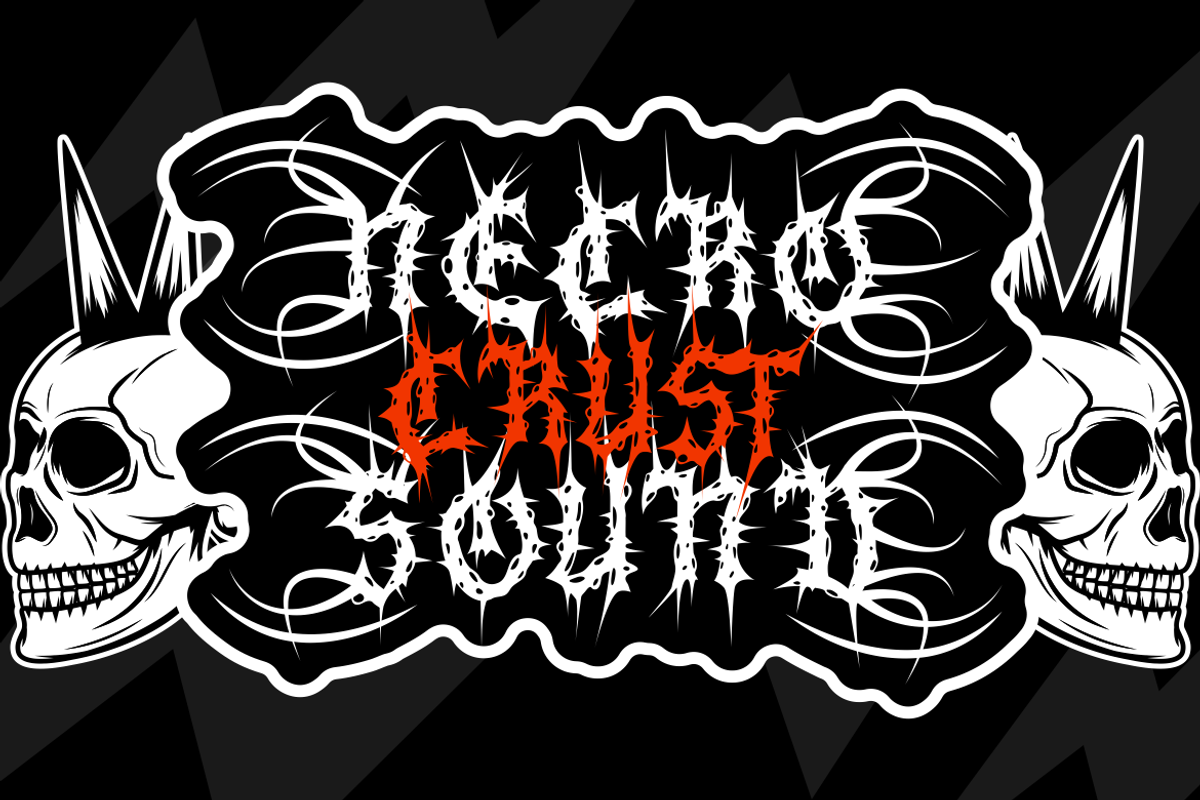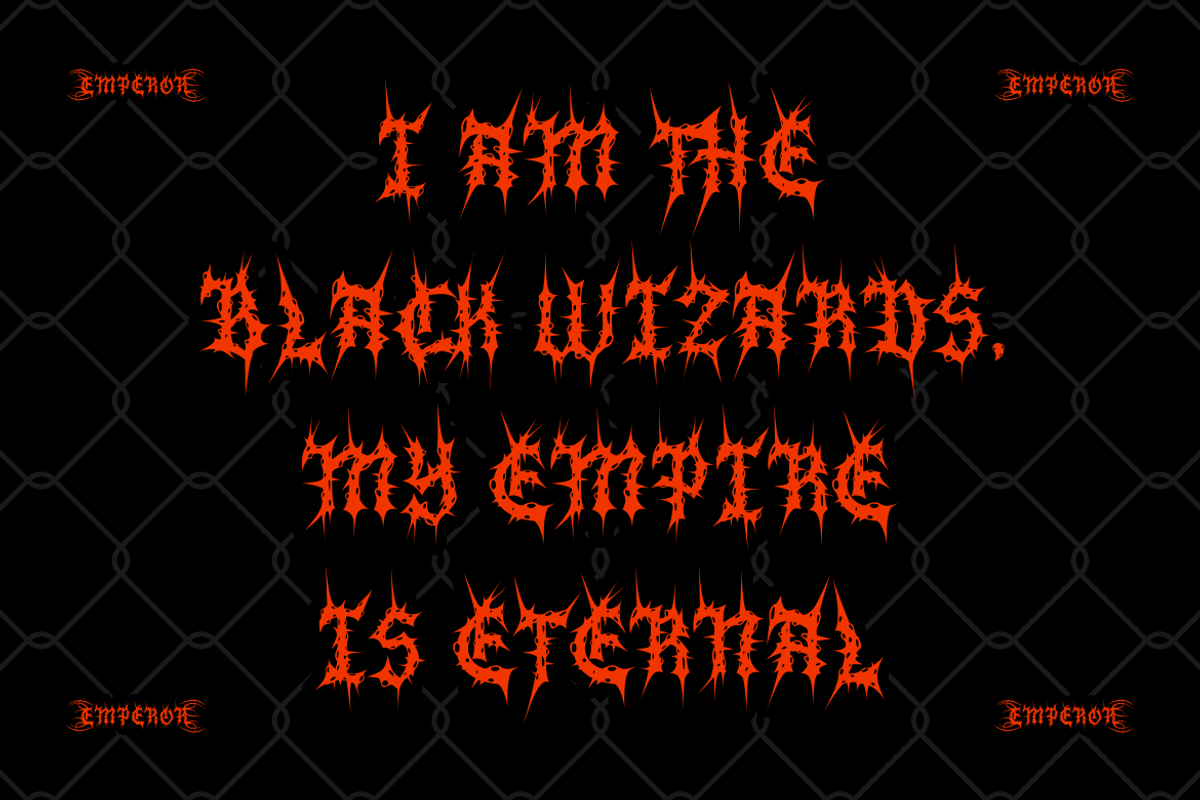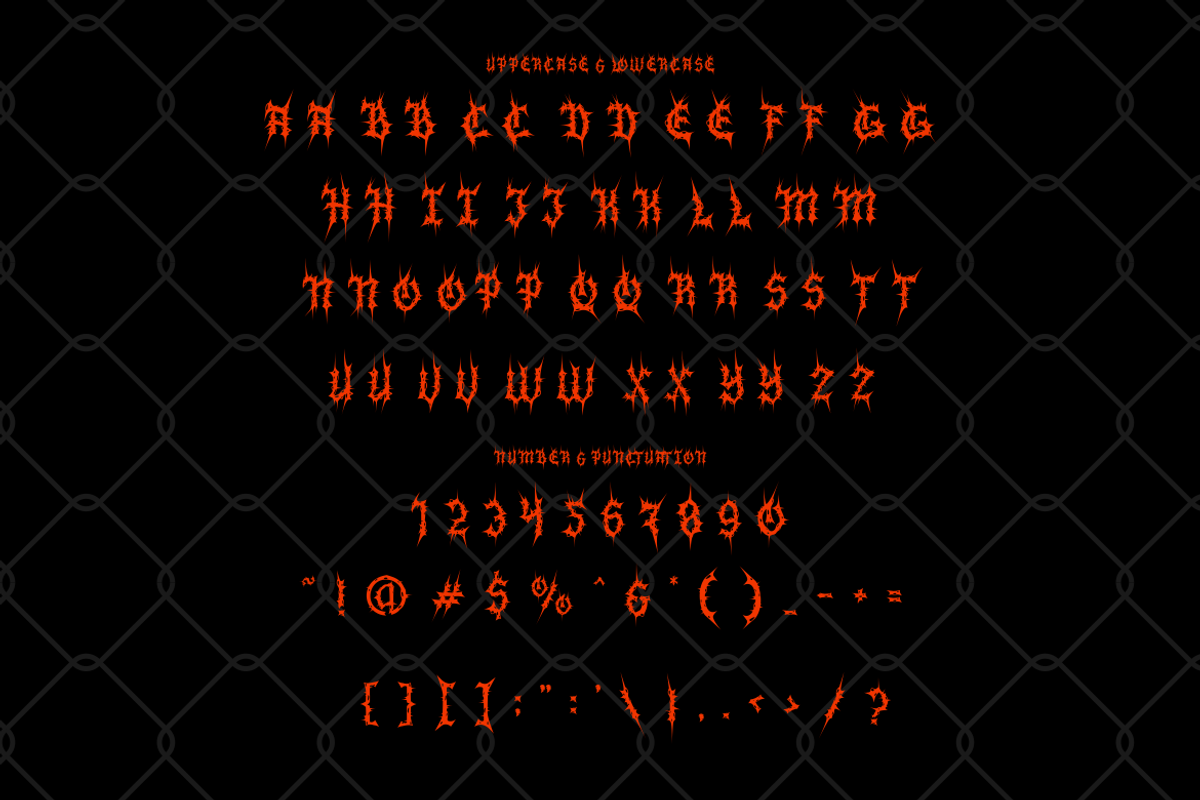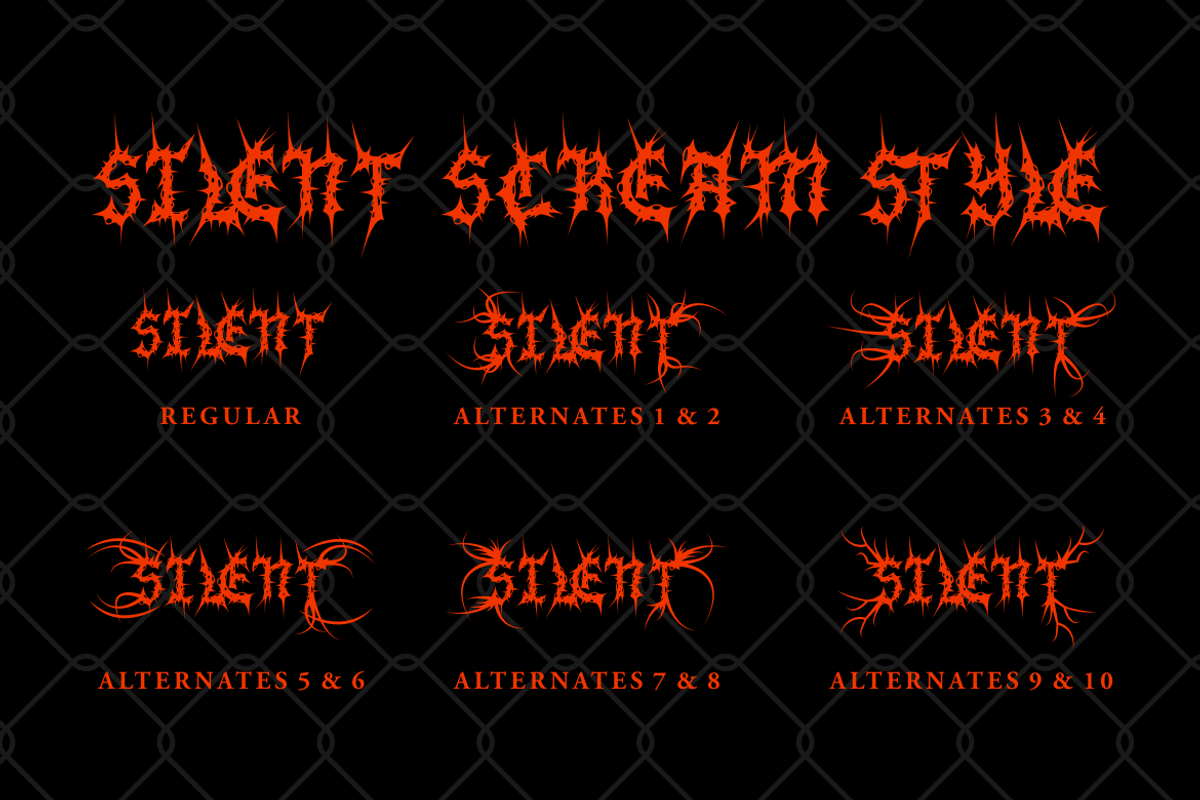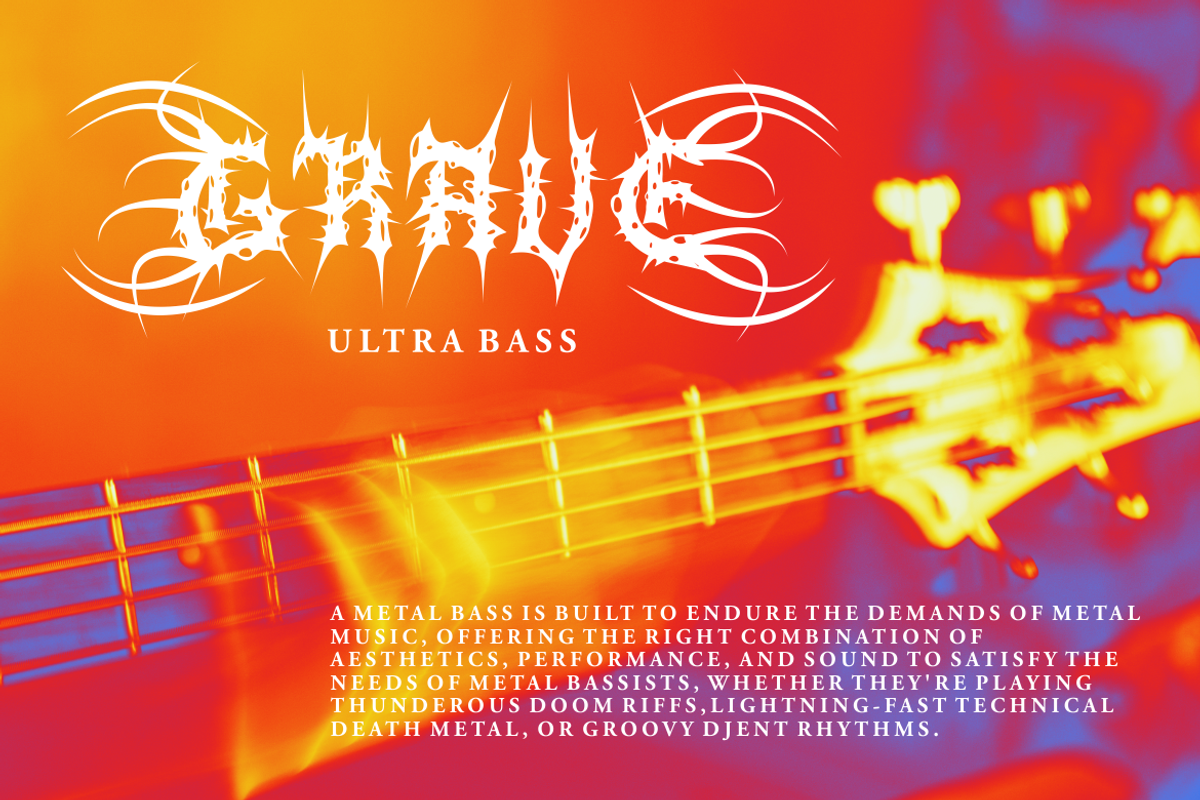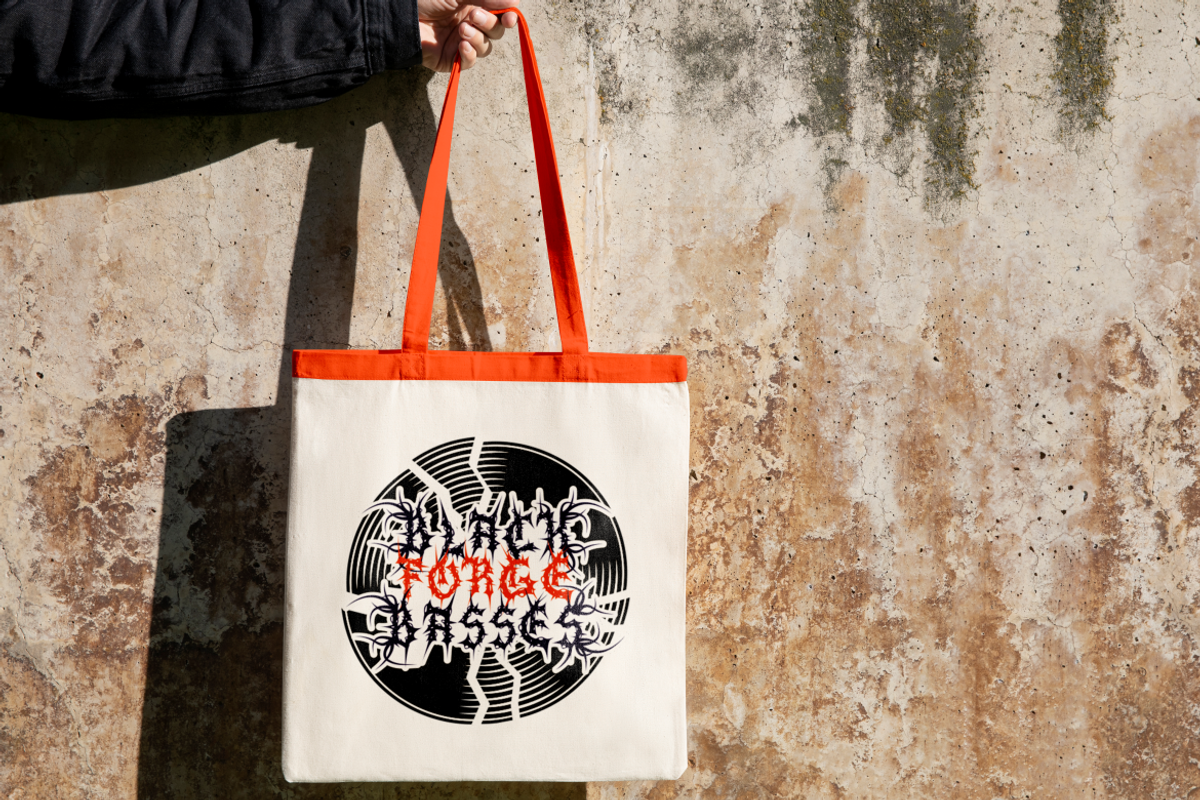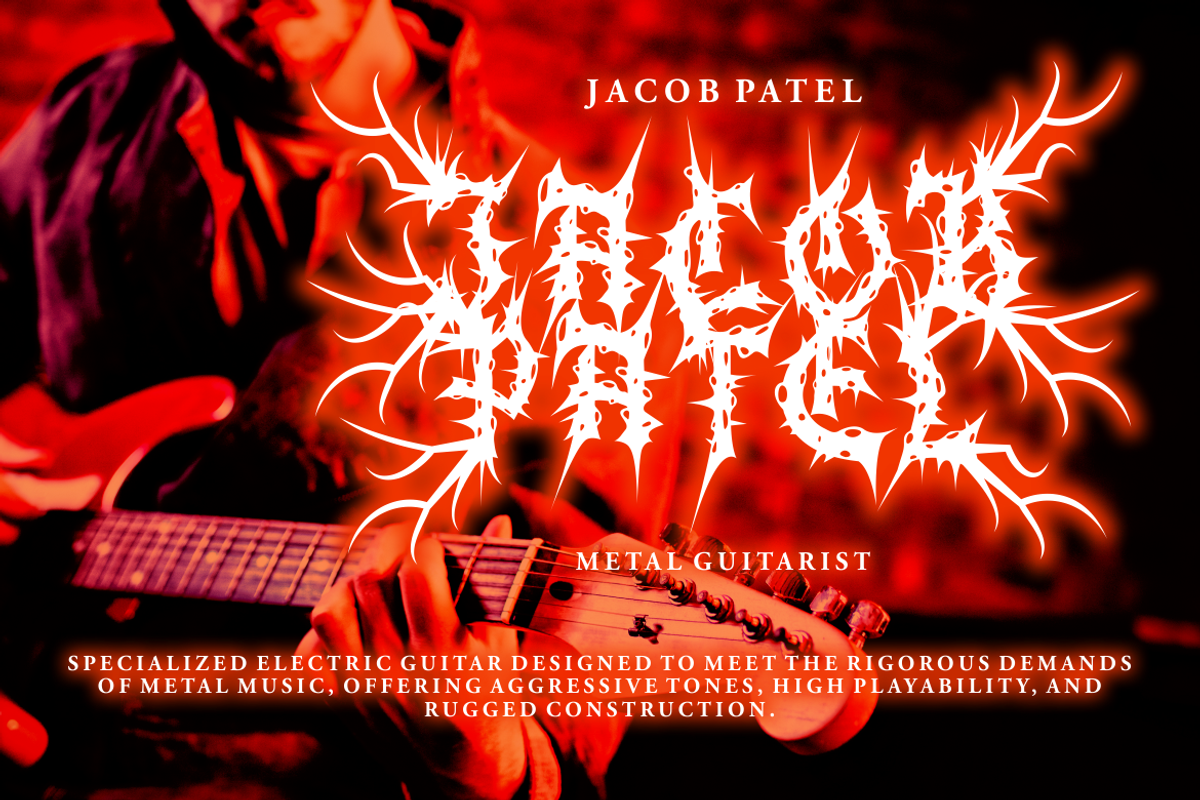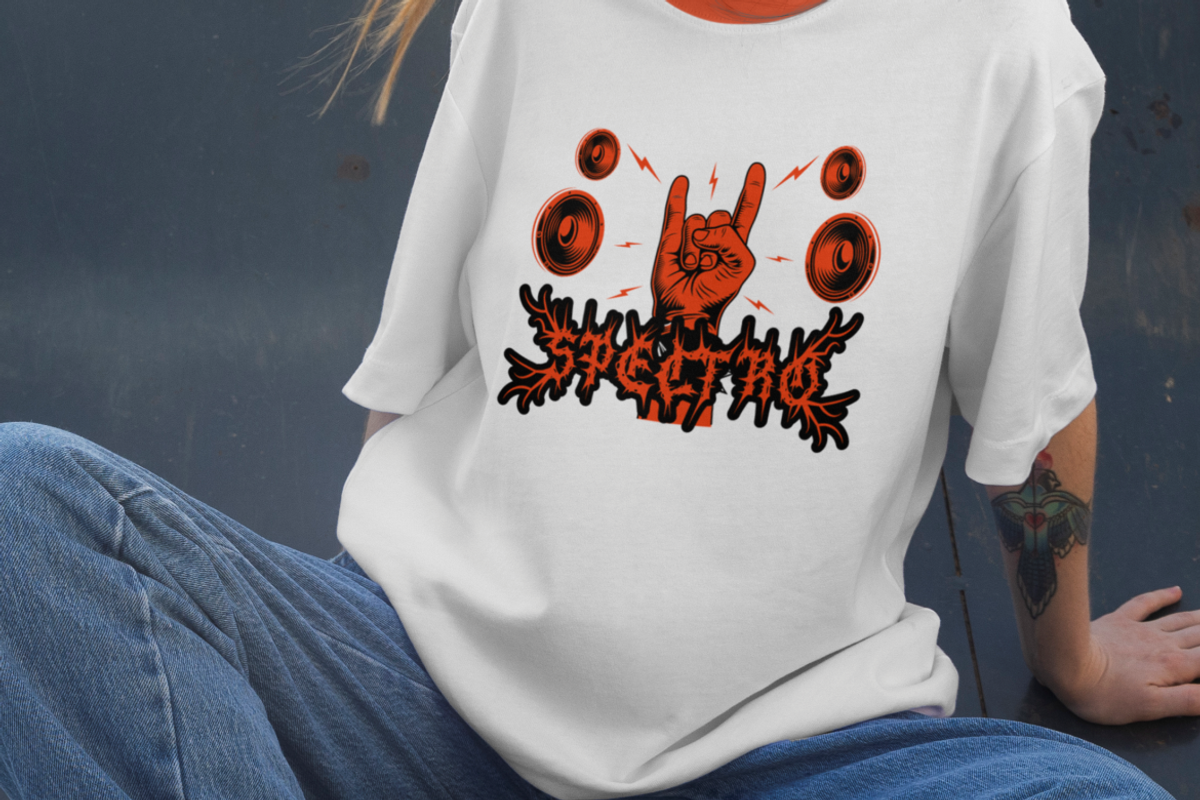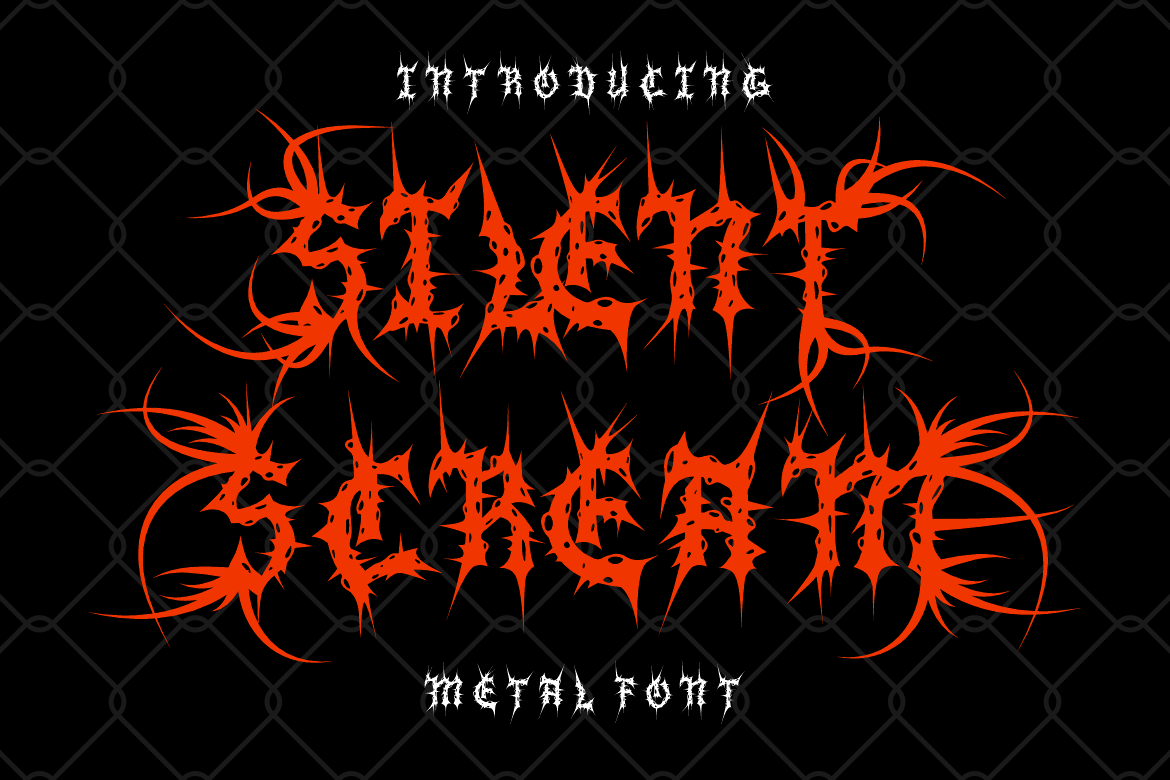
Silent Scream - Metal Font
Introducing Silent Scream - Metal Font, a fierce and edgy typeface that embodies the raw power of the metal genre. With sharp, spiked edges and organic, twisted lines, this font evokes a sense of aggression and intensity, perfect for designs aiming to make a bold statement. The blood-red font color against the dark, chain-link background creates a dramatic, almost sinister effect, making it ideal for projects that want to channel gothic or dark-themed aesthetics. Silent Scream captures the spirit of death metal and black metal, making it perfect for music branding, album covers, and posters for rock and metal bands. Its unique structure brings a sense of chaos and power to any text, enhancing its visual impact.
Whether you're designing for band merchandise, movie titles, or edgy packaging, Silent Scream is a versatile choice that can elevate the vibe of any creative project. Its gothic and grunge elements make it an excellent fit for horror-themed covers, magazine designs, stickers, or any craft projects that need a dark, rebellious touch. With its bold, unforgettable style, Silent Scream is the go-to font for designers looking to capture the energy of metal music and gothic art in their work.